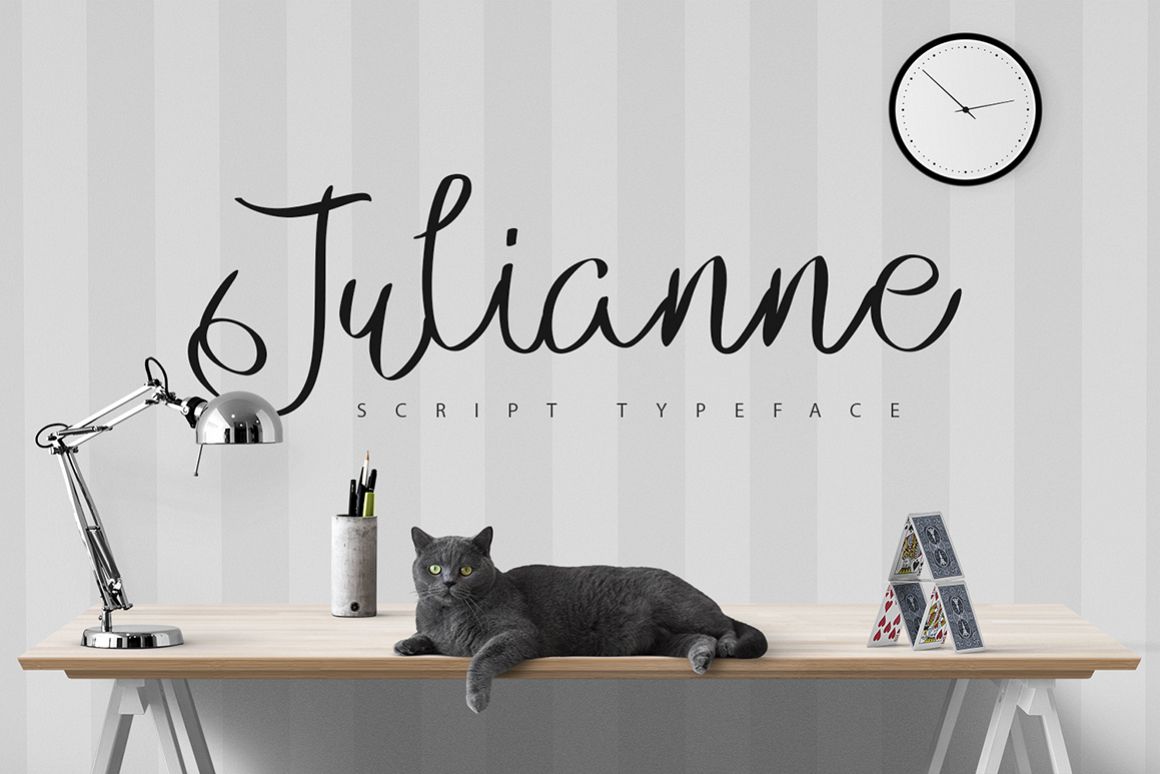
Julianne Script Typeface
Julianne.
Julianne is a thin roundhand handmade font, perfect for your delicate designs.
All letters, all numbers, all puntuations, Lowercase and Uppercase, all symbols.